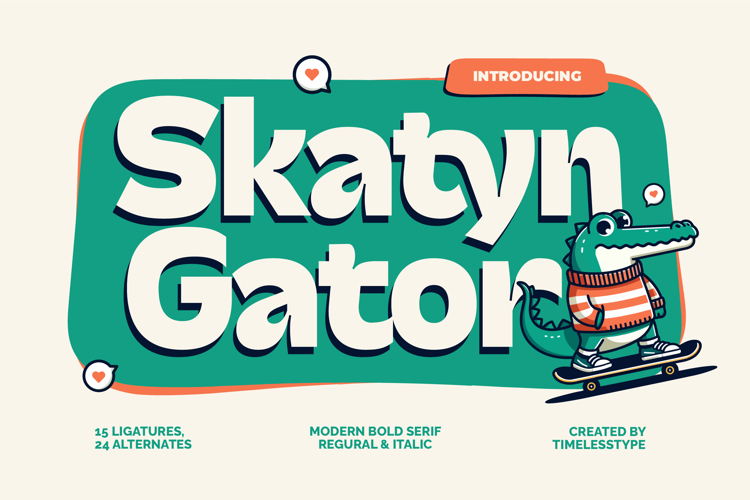
Skatyn Gator -Modern Bold Serif Display Font
Skatyn Gator -Modern Bold Serif Display Font brings an instantly impactful presence to any design, combining a contemporary aesthetic with a friendly, approachable appeal. Its distinctive bold serifs and rounded forms create a harmonious balance between strength and warmth, making it an exceptional choice for projects demanding both gravitas and charm. This font commands attention effortlessly, ensuring your message is not just seen, but truly felt.
Unlock immense creative potential with Skatyn Gator -Modern Bold Serif Display Font, meticulously crafted with 15 ligatures and 24 alternates to provide unparalleled design flexibility. These extensive stylistic options allow designers to customize and personalize headlines, logos, and branding elements, ensuring a truly unique and expressive design that stands out from the crowd. It’s perfect for crafting a bespoke visual identity with a playful yet sophisticated edge.
Achieve true global reach with Skatyn Gator -Modern Bold Serif Display Font, engineered for comprehensive international application. With its extensive multilingual support, Skatyn Gator -Modern Bold Serif Display Font adapts seamlessly across global markets, making it incredibly versatile for international projects. This ensures your brand resonates across diverse cultures and languages without compromising on its distinctive visual integrity.